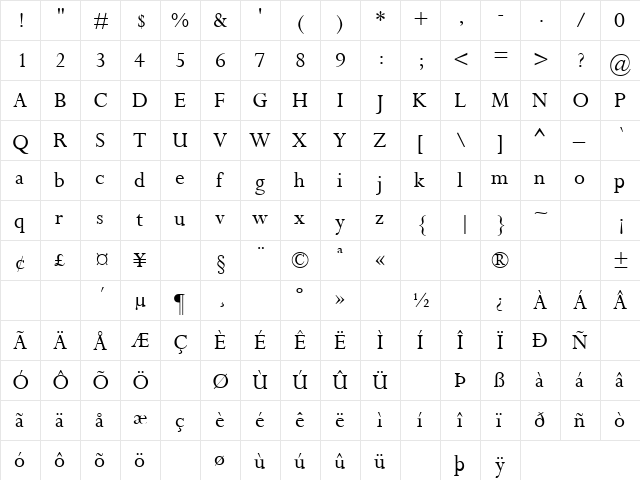
Sweet Emotion 1 Regular
Design Context for Sweet Emotion 1 Typeface
Sweet Emotion 1 takes a measured approach to typography — its balanced proportions and neutral character make it a reliable workhorse for both digital and print work.